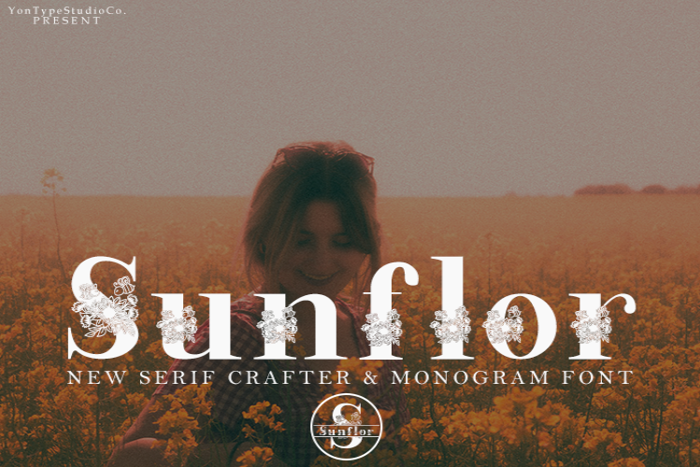
Sunflorcrafter Font
Introducing Sunflor-A New Crafter & Monogram Serif Font. The elegant crafter and monogram serif fonts very suitable for the use of nature-themed logos, for wedding invitations, print projects, and posters, magazines and much more